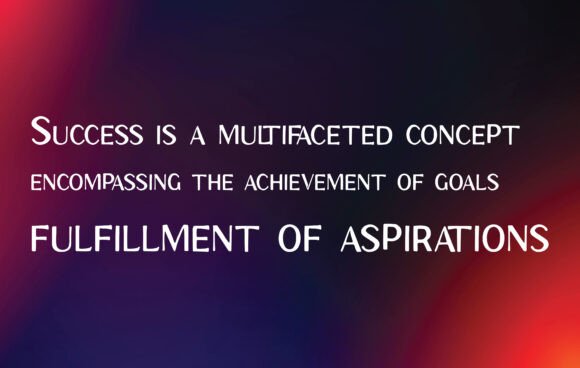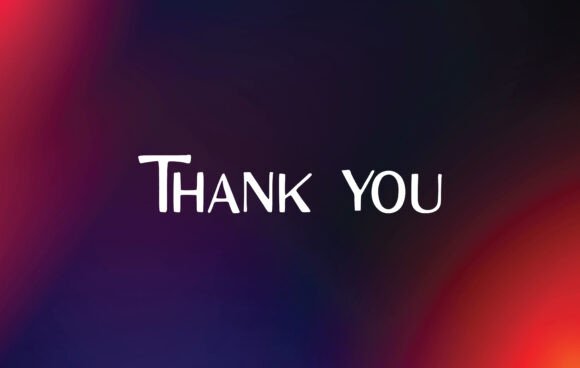
Discover the Versatility of Donna Font: Elevate Your Designs with Style and Personality
In the world of typography, a font can make all the difference in bringing your creative ideas to life. For designers, crafters, and anyone looking to add a touch of personality to their projects, Donna Font is a game-changer. This versatile and eye-catching font is designed to be a go-to favorite for a wide range of applications, from magazine covers and t-shirts to social media posts, branding, wedding invitations, and greeting cards.
What Makes Donna Font Stand Out?
Donna Font is crafted with clarity and readability in mind, making it an excellent choice for both titles and body text. Its clear and easy-to-read design ensures that your message gets across effectively, whether you’re working on a large-scale project or a small, intricate design. The font’s versatility is one of its most significant advantages, allowing you to use it across various mediums and applications.
Donna Font is a dream come true for designers and crafters who want to add a professional touch to their work without sacrificing style. For designers, this font offers a reliable and stylish option for client projects, while crafters can use it to create stunning, high-quality materials for their handmade products. Whether you’re creating:
- Magazine covers that grab attention
- T-shirts that make a statement
- Social media posts that engage and inspire
- Branding materials that reflect your business’s personality
- Wedding invitations that set the tone for a special day
- Greeting cards that convey thought and care
Donna Font fits right in with style and personality, elevating your work to the next level.
The Benefits of Using Donna Font
So, what are the benefits of using Donna Font in your projects? Here are just a few:
- Versatility: Use Donna Font across various mediums, from digital platforms to print materials.
- Readability: Enjoy clear and easy-to-read text, perfect for titles and body text.
- Style: Add a touch of personality to your designs with Donna Font’s unique and eye-catching style.
- Time-Saving: With Donna Font, you can create professional-looking materials quickly and efficiently.
Tips for Getting the Most Out of Donna Font
To make the most of Donna Font, here are some tips to keep in mind:
- Experiment with sizes: Play around with different font sizes to find the perfect balance for your design.
- Pair with other fonts: Combine Donna Font with other fonts to create a unique and visually appealing design.
- Use in different colors: Take advantage of Donna Font’s versatility by using it in different colors and color combinations.
Donna Font is a versatile and eye-catching font that’s perfect for designers, crafters, and anyone looking to add a touch of personality to their projects. With its clear and easy-to-read design, versatility, and style, it’s an excellent choice for a wide range of applications. Whether you’re working on a large-scale project or a small, intricate design, Donna Font is sure to bring your creative ideas to life.